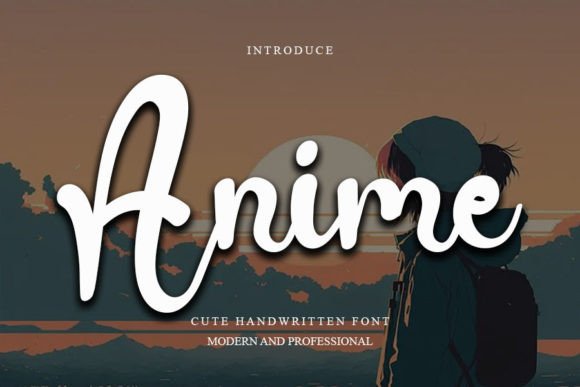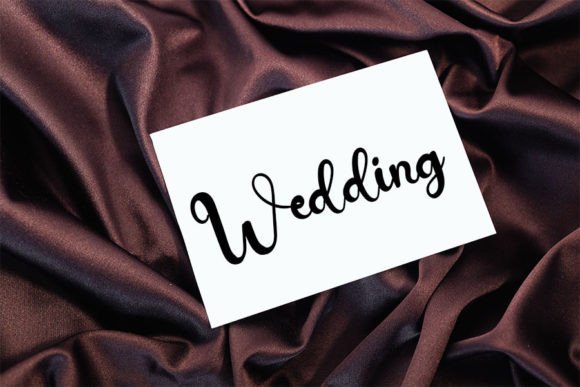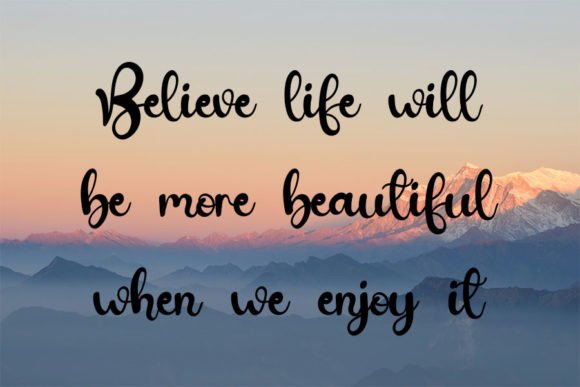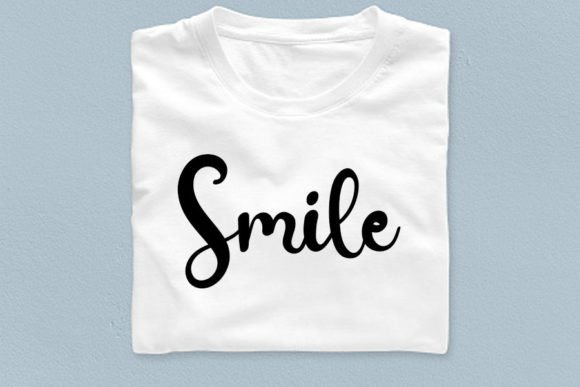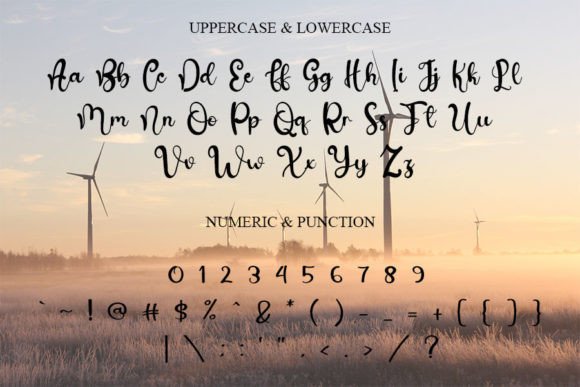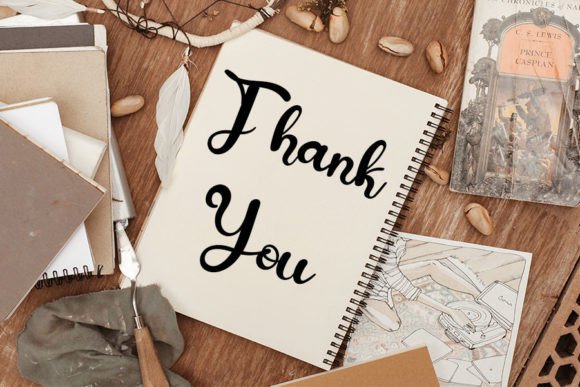
Anime Font
About Anime Font
Animefont is a magical handwritten typeface designed with a delicate balance of elegance and a touch of quirky personality. This clean and distinctive font is perfect for anyone looking to add a unique, handcrafted flair to their creative projects. Whether you’re designing logos, branding materials, social media content, or crafty DIY works, Animefont will help you make a lasting impression.
Elegant Yet Quirky Design
Animefont blends sophistication with a playful edge. Its elegant strokes give your designs a refined appearance, while the subtle quirks in its letterforms add character and warmth. This makes it suitable for a wide range of applications—from professional branding to fun, casual creative pieces.
Ideal for Logos and Branding Projects
The unique style of Animefont enhances logos and branding by infusing them with personality and charm. It offers brands the opportunity to stand out with a handcrafted look that appeals to modern audiences. Whether you’re crafting a boutique brand, a creative agency, or personal logos, Animefont provides a fresh, stylish option.
Perfect for Social Media and DIY Creativity
Animefont also excels in social media design and DIY projects. Its eye-catching yet elegant style draws attention and adds a personal touch. Use it for Instagram posts, blog headers, greeting cards, or any project that benefits from a handwritten, artistic feel.
Versatile and User-Friendly
Thanks to its PUA encoding, Animefont gives you easy access to a wide range of glyphs and swashes. This makes customization simple, allowing you to tailor your designs to fit your unique vision. The font’s versatility makes it an essential tool in any creative toolkit.
Why Choose Anime Font?
Animefont combines magical elegance with a hint of whimsy, making it a versatile and charming choice for your creative projects. It brings personality and style, whether you’re working on branding, social media, or crafts. Choose Animefont to elevate your designs with a clean, quirky handwritten touch.